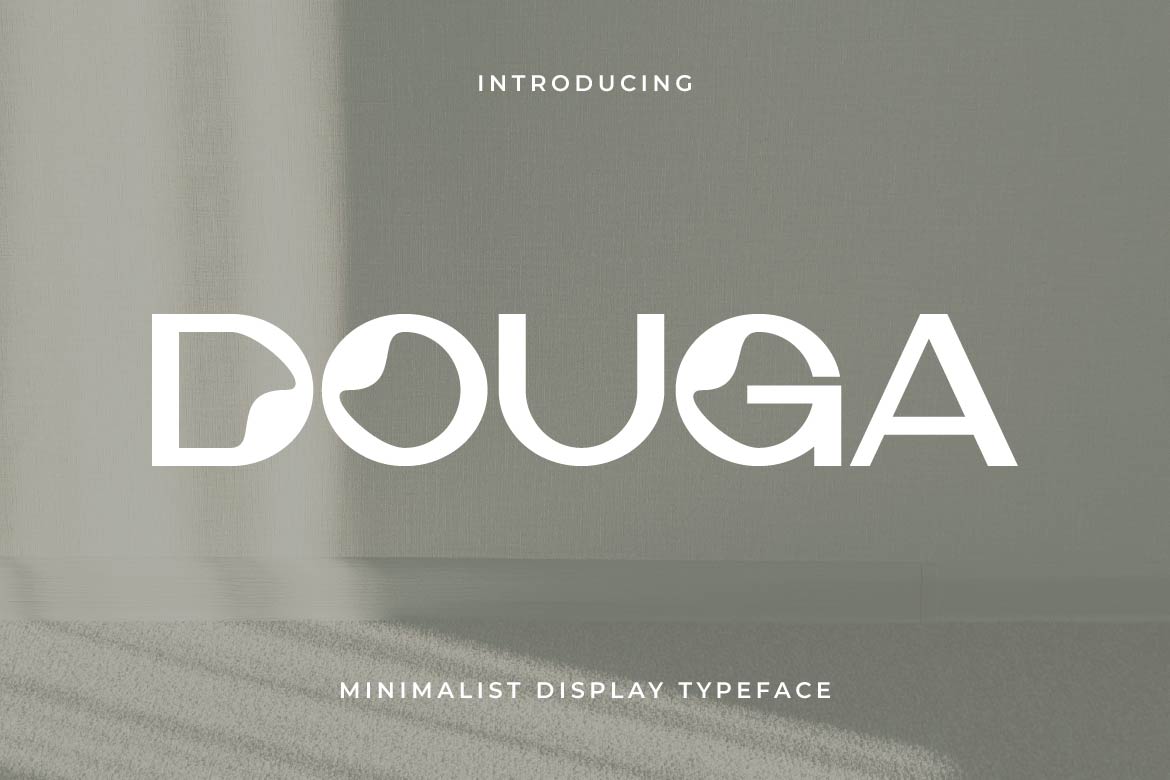
- Douga – Expressive Display Typeface
Douga is a creative display typeface designed to bring bold personality and artistic expression into modern typography. Featuring distinctive letterforms, balanced proportions, and contemporary styling, Douga creates eye-catching visuals that leave a lasting impression.
Perfect for branding, logos, posters, packaging, editorial layouts, merchandise, social media graphics, and creative campaigns, Douga combines originality with excellent readability. Its expressive display style makes it ideal for designers who want typography that stands out while remaining clean and versatile.
Whether you’re building a creative brand, launching a new product, or designing striking promotional materials, Douga delivers the confidence, flexibility, and modern character needed to make every project memorable.
Douga isn’t just a typeface—it’s a creative voice that transforms bold ideas into unforgettable visual experiences.